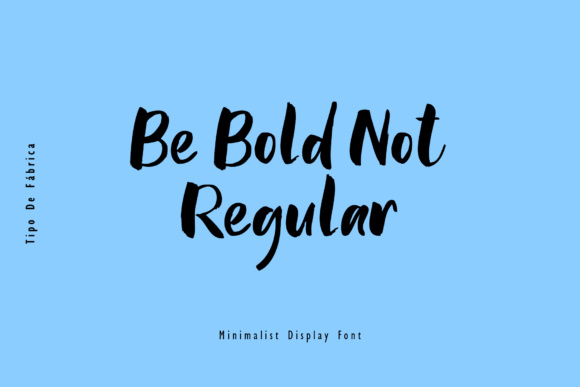
**Unleash Your Boldness with Be Bold Not Regular Font**
Immerse yourself in the world of typography, where every letter whispers a tale of individuality and style. We present to you Be Bold Not Regular, a display font crafted by the visionary Giant Design, ready to ignite your creative passion.
Be Bold Not Regular is more than just a font; it's an emblem of audacity, a testament to the transformative power of boldness. Its chiseled letters, each imbued with a distinct personality, emanate an undeniable charm that will captivate your audience and amplify your message with unparalleled impact.
Step into the fashion realm, where Be Bold Not Regular reigns supreme. Let its bold presence grace your designs, creating unforgettable brand experiences that echo the pulse of modern sophistication. Its minimalist allure whispers a tale of elegance, making it the perfect choice for wedding invitations, adding a touch of timeless charm to your most cherished moments.
The digital landscape is your canvas, and Be Bold Not Regular is the vibrant hue that will set your Instagram feed ablaze. Elevate your social media presence with captivating posts that dance with individuality and style. From eye-catching captions to stunning visuals, Be Bold Not Regular empowers you to stand out in the digital crowd, leaving an imprint that lingers long after the scroll.
Embrace the spirit of boldness and watch your brand soar to new heights with Be Bold Not Regular. Its versatility knows no bounds, extending its influence to logos, posters, and websites. Imagine your business adorned with a font that exudes confidence and style. It's a font that speaks to the modern, discerning consumer, echoing the essence of your brand's DNA.